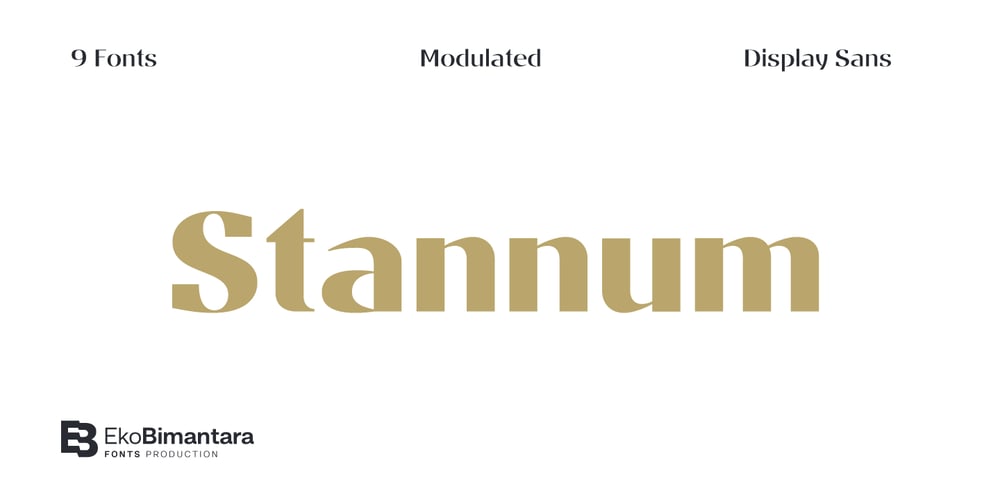
Stannum
Stannum font
Stannum Font Family was designed by Eko Bimantara and published by Eko Bimantara. Stannum contains 9 styles and family package options. Stannum is a modulated display sans font family. It enriched by letterforms that shown a simple, classic and elegant impression. Its a compact font family that consist of 9 style of weight, from thin to black. It consists of 380s of glyphs which support broad latin languages. This font is fit for display, large usage, brand, titles, short text, web headlines and ample of other possibilities.